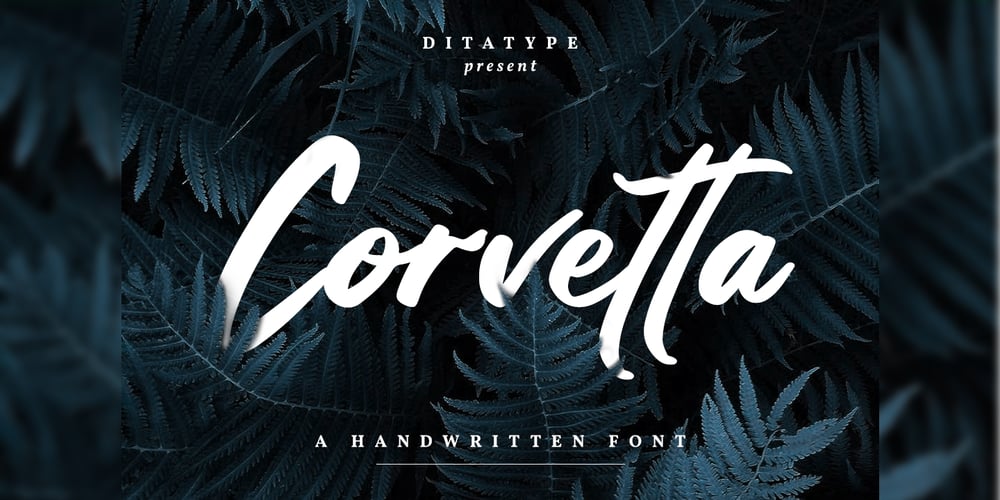
Corvetta Font Family was designed by Donis Miftahudin and published by Ditatype. Corvetta contains 1 styles and family package options. Corvetta is a bold handwritten font, carefully handcrafted to become a true favorite. Its casual charm makes it appear wonderfully down-to-earth, readable and, ultimately, incredibly versatile. Corvetta will look outstanding in any context, whether it’s being used on busy backgrounds or as a standalone headline!Featured : Accents (Multilingual characters) PUA encoded Numerals and Punctuation (OpenType Standard) Full Support Dita Type